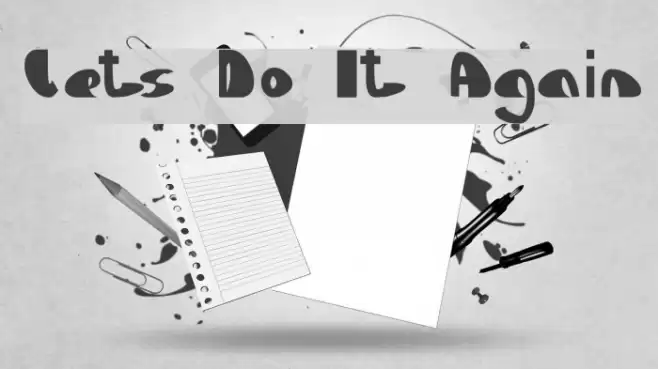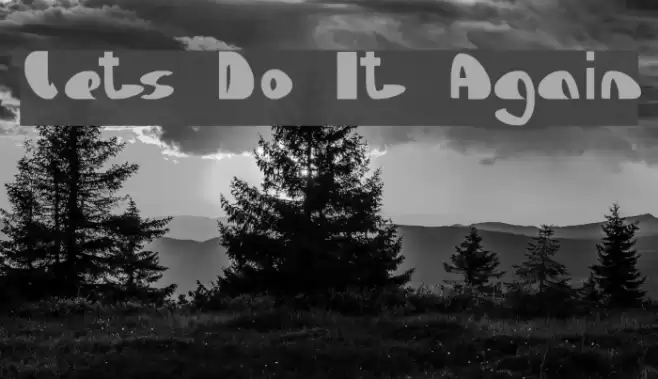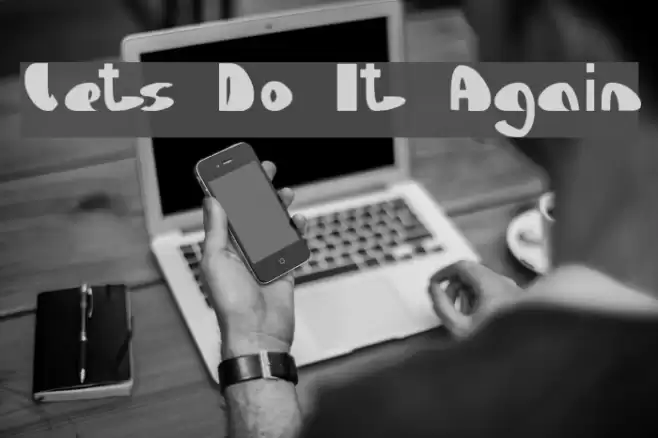
Lets Do It Again Font
Lets Do It Again Description
This font features a bold and playful design with a unique, artistic flair. The characters are crafted with a combination of thick and thin strokes, creating a dynamic visual rhythm. The uppercase letters have a strong presence with rounded edges and a slightly condensed form, while the lowercase letters maintain a whimsical and flowing style. The font's overall appearance is both modern and decorative, making it suitable for creative and eye-catching designs. Its distinct character shapes and moderate contrast in stroke thickness add to its charm, making it ideal for projects that require a touch of creativity and fun.
A bold, playful font with artistic flair and dynamic strokes from Uncategorized fonts.
- Proposed Projects: Ideal for posters, branding, children's books, and creative advertising.
- Overall Style: Modern, Decorative